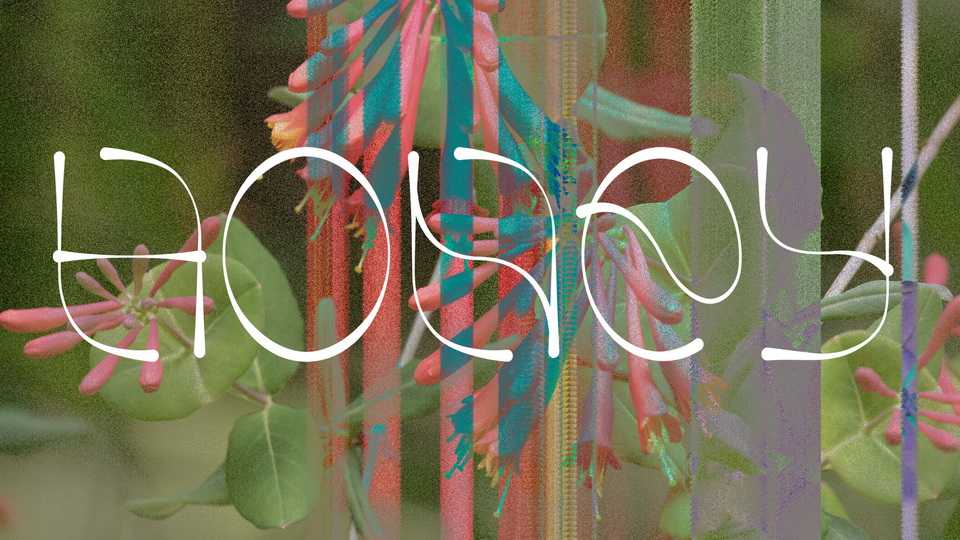
Download Honey font, an all-caps display typeface, is an exploration in type design inspired by the honeysuckle flower. Much like the honeysuckle flower, Honey has a striking appearance that alludes to its tubular shape before the flower blooms.
Designer: Melina Sweet